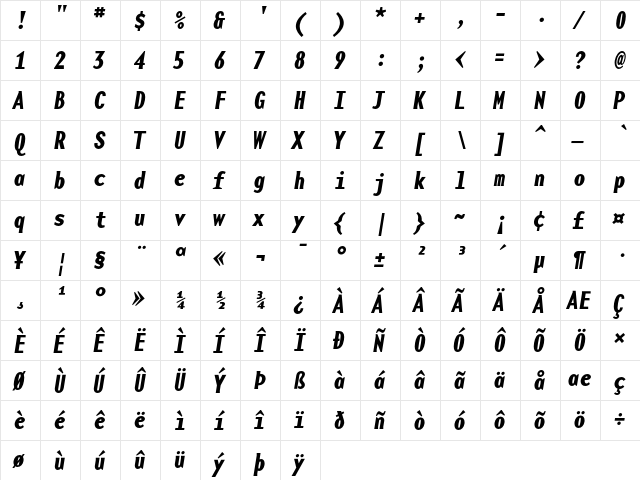
BaseMono-Narrow BoldItalic Font Preview
Design Context for BaseMono-Narrow Typeface
BaseMono-Narrow brings the precise, column-aligned rhythm of monospaced typography to designs that value technical clarity and systematic order. Its italic angle brings a sense of urgency and motion to the letterforms. Its bold stroke weight gives it real presence on the page.
Pro Tip: Pair BaseMono-Narrow with a proportional sans for UI contexts where code-style labels and regular body copy need to coexist.